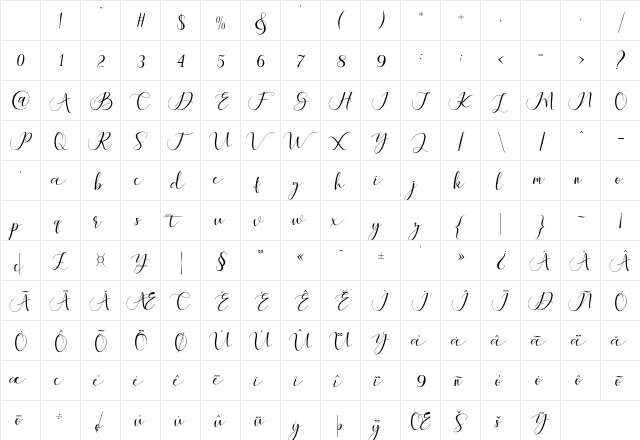
Complete Maheria Script Regular glyph index. Displaying only characters natively supported by Maheria Script Regular font.
Maheria Script flows with the natural rhythm of handwritten lettering, making it ideal for designs that call for warmth and personal expression.
Font Pairing: Combine Maheria Script with a simple geometric sans for maximum contrast - the tension between flowing curves and clean structure is a classic typographic pairing.
Pro Tip: Use Maheria Script for short runs of text - names, titles, or taglines. Extended body copy in script faces tires the eye quickly.